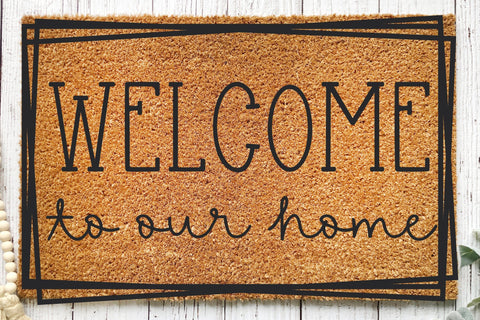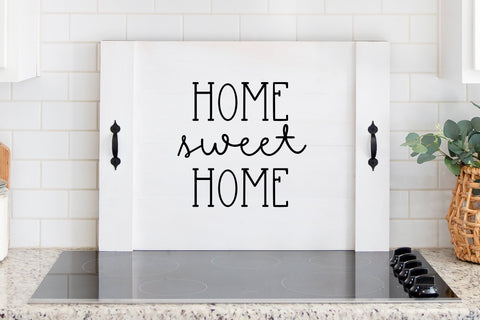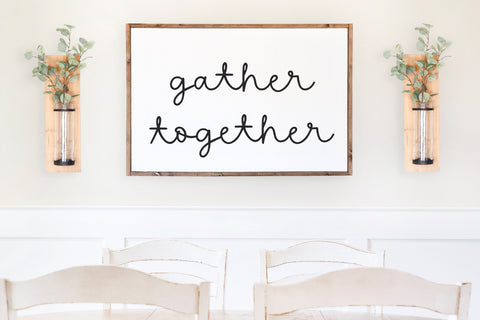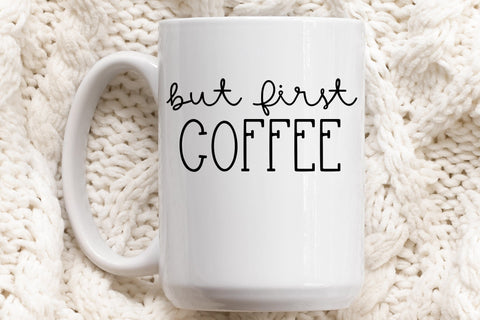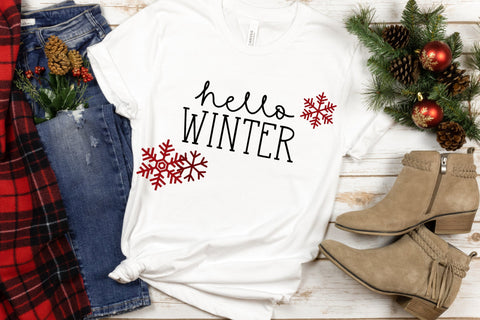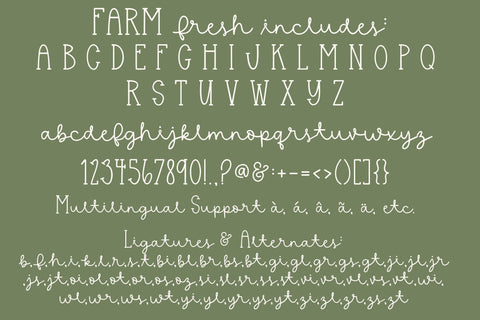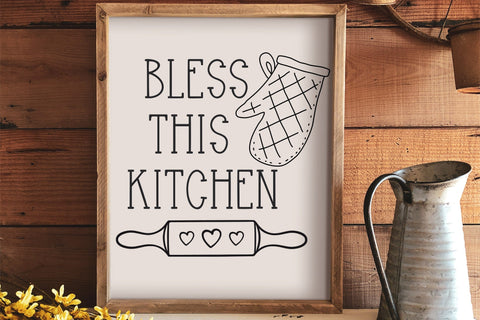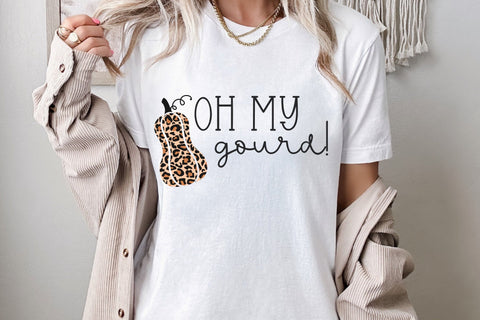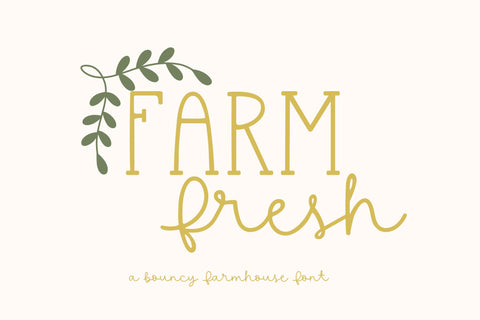
Farm Fresh, Farmhouse Font for Cricut, Handwritten Lettering
Introducing Farm Fresh, our farmhouse style script font, perfect for all your creative projects! Whether you're a Cricut enthusiast or simply looking for a charming cursive font, this handwritten gem is exactly what you need. With its elegant curves and smooth strokes, our cute script font brings a delightful touch to invitations, greeting cards, and personalized crafts. Crafted specifically for Cricut users, this font is perfect for your Cricut font SVG designs, ensuring seamless compatibility with your cutting machine. Transform your designs into stunning works of art with our versatile Cute Script Font, the ultimate choice for anyone seeking a captivating and expressive typeface for their projects.